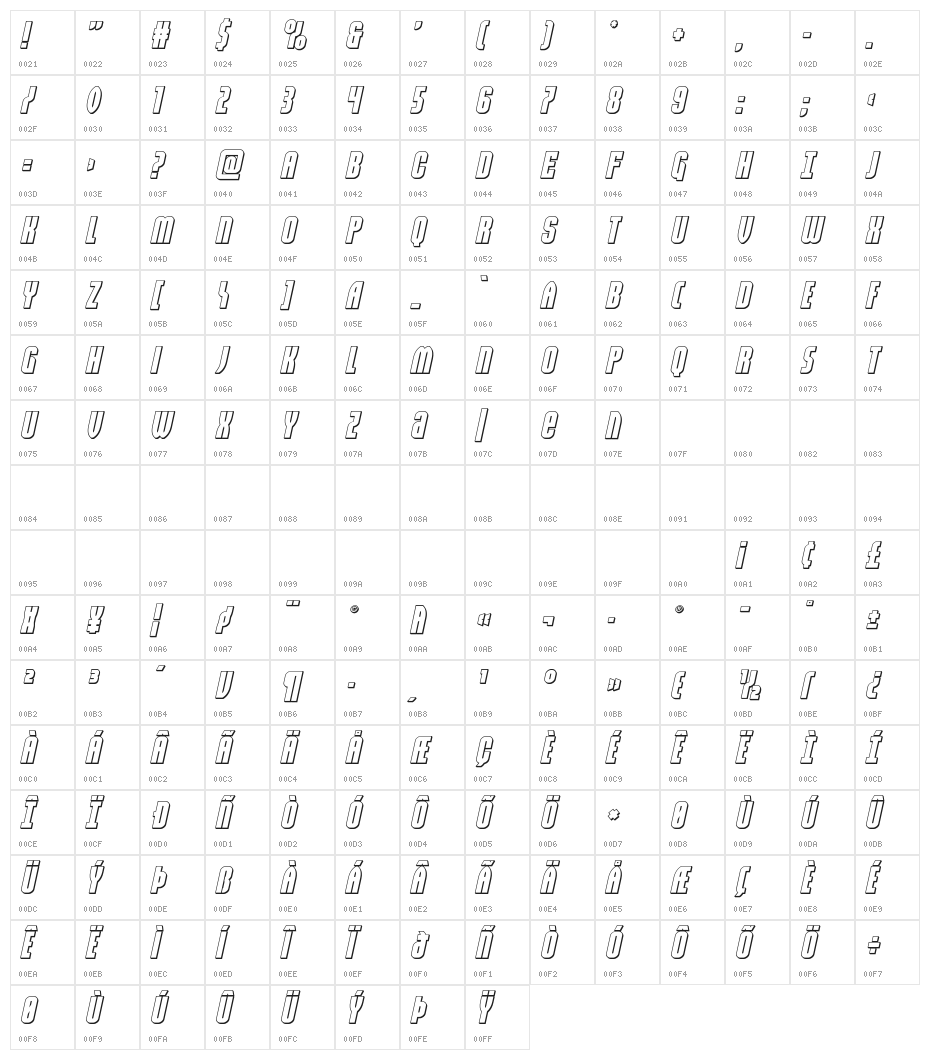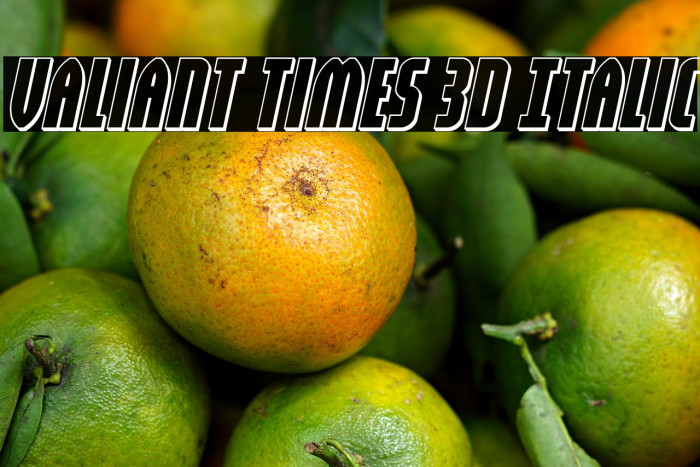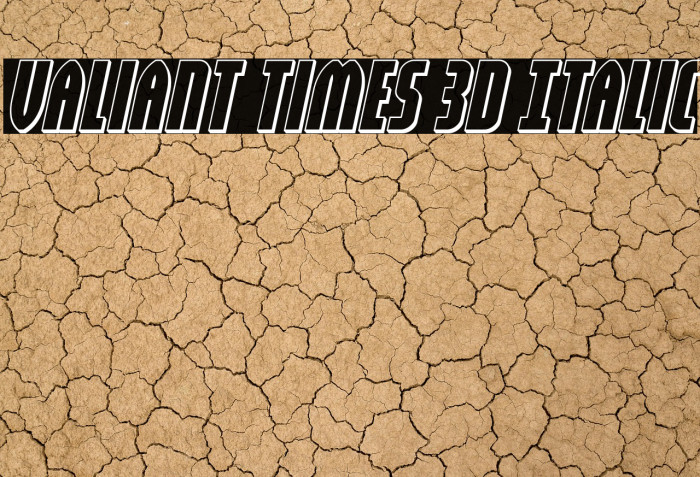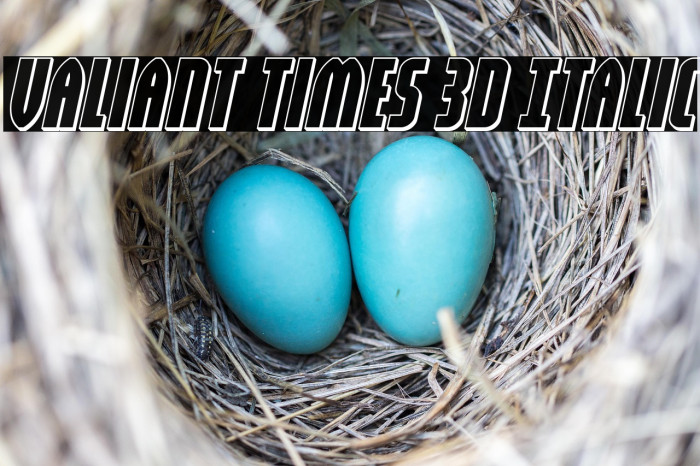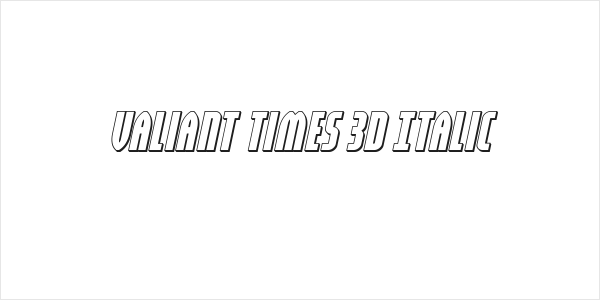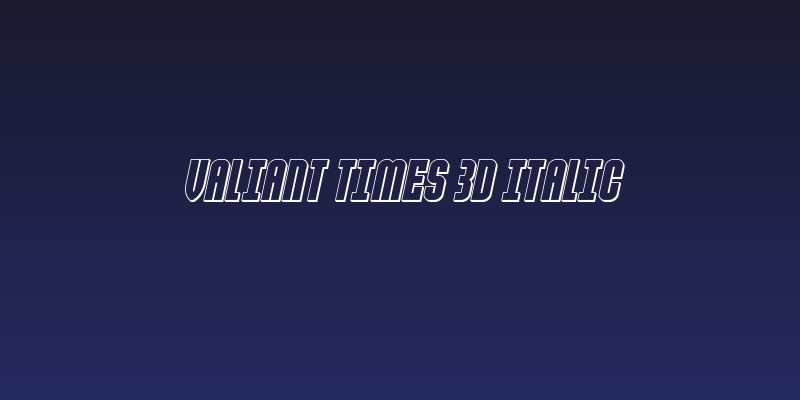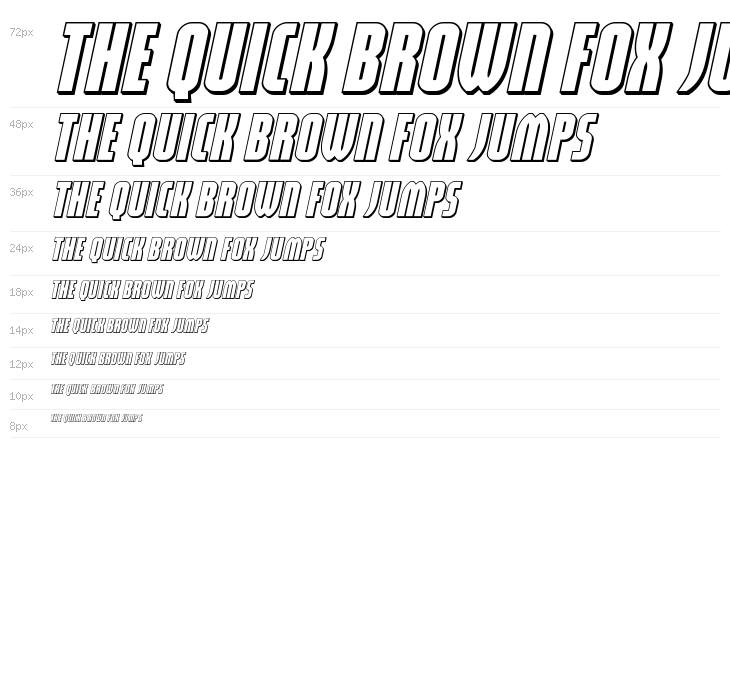
Valiant Times 3D Italic Font
Valiant Times 3D Italic Description
This font features a bold, three-dimensional design with an italic slant, creating a dynamic and impactful appearance. The characters are outlined, giving them a distinct, shadowed look that enhances their visibility and adds depth. The uppercase and lowercase letters maintain a consistent style, with sharp edges and clean lines. The numerals and special characters are equally bold and follow the same 3D italicized style, ensuring uniformity across all glyphs. This font is ideal for projects that require a strong visual statement.
| Proposed Projects | Ideal for posters, headlines, logos, and any design needing a bold, eye-catching typeface. |